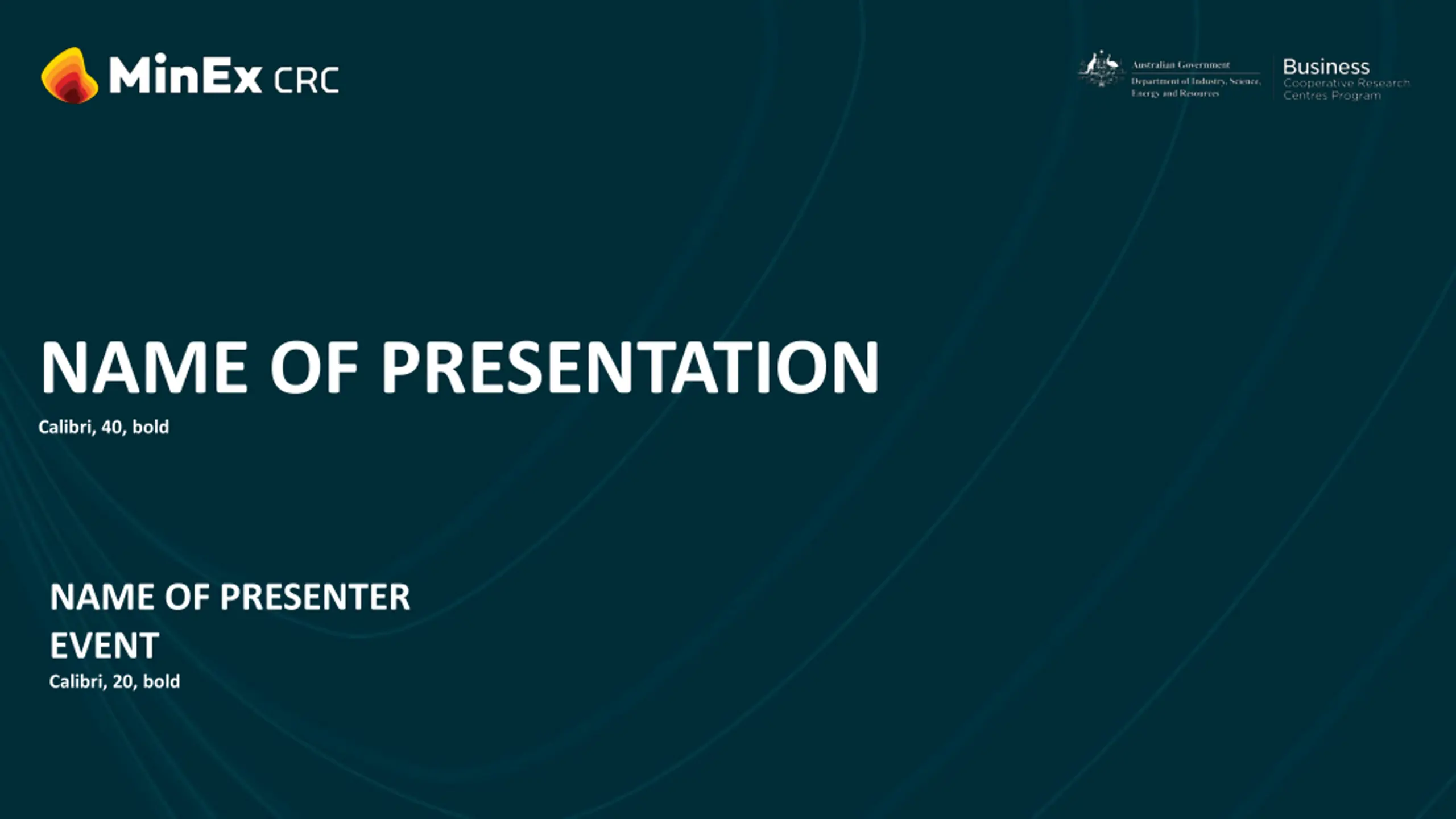
Creating Engaging Presentations with Calibri Font
Elevate your presentations with the sleek and modern Calibri font. Learn how to captivate your audience and convey your message effectively. Explore the power of visual storytelling with expert tips and tricks for using Calibri in your slides.
NAME OF PRESENTATION Calibri, 40, bold NAME OF PRESENTER EVENT Calibri, 20, bold